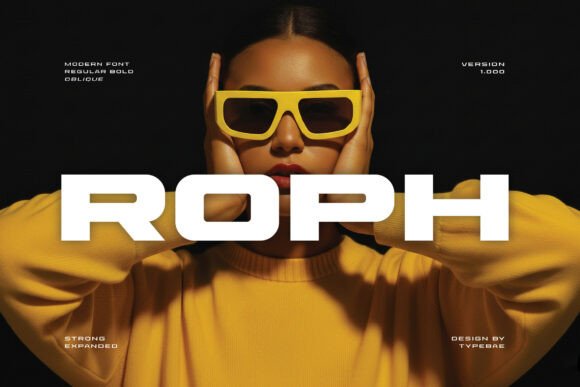
Roph: A Modern Sans Serif for Bold Branding
First Impressions: Roph in the Designer's Eye
When I first saw Roph, it immediately caught my attention with its clean lines and strong geometric structure. It has a modern, almost futuristic feel that sets it apart from more traditional sans serifs. The letters are bold yet balanced, giving them a sense of authority without being overwhelming.
The mood it creates is one of confidence and clarity. It feels like a font that’s built for purpose—whether it’s a brand mark or a headline. Its visual personality leans toward minimalism but with a touch of edge, making it ideal for projects that need to stand out while maintaining professionalism.
Real-World Applications: Where Roph Shines
Roph isn’t just another display font—it’s a versatile tool that can be used across various design scenarios. In logo design, it offers a strong foundation for creating memorable brand identities. Its sharp angles and consistent stroke weights make it perfect for logos that need to project strength and modernity.
In packaging design, Roph adds a sleek, premium feel to product labels and boxes. It works especially well when paired with high-quality imagery, reinforcing a sense of sophistication. For social media graphics, it’s an excellent choice for headlines and call-to-action buttons, ensuring your message is clear and impactful at a glance.
When it comes to web design, Roph performs exceptionally well in headers and navigation menus. Its readability even at smaller sizes makes it suitable for website headers and blog titles. In editorial design, it can serve as a main title font or be used creatively in pull quotes and section headers.
For printable products like flyers, invitations, and merchandise, Roph brings a contemporary edge that appeals to a wide audience. Whether you're designing for a digital ad or a Cricut project, this font maintains its integrity across different mediums and scales.
Where Caution Is Advised: Best Practices for Using Roph
While Roph is highly versatile, there are situations where it should be used carefully. For large headlines, it shines, but for supporting text, it may become too dominant unless paired with a complementary font. It’s best suited for short phrases, brand marks, and decorative accents rather than long paragraphs.
If you're using Roph in premium packaging or brand identity work, ensure that it aligns with the overall tone and values of the brand. It’s not a font for every project—especially those that require a softer or more organic feel.
On social posts, use it sparingly to maintain visual balance. And when working on digital products or Canva templates, test how it looks in different color schemes and backgrounds to ensure it remains legible and aesthetically pleasing.
Readability and Design Impact
One of the most important factors in choosing a font is readability. Roph excels in this area, especially when used for headlines and short phrases. Its uniform stroke widths and open counters contribute to a clean, easy-to-read appearance.
In terms of brand consistency, Roph provides a strong visual anchor. When used consistently across different design assets, it helps reinforce brand recognition and professionalism. This makes it a great choice for brand identity systems that aim to convey a modern, confident image.
The visual mood of Roph is forward-thinking and structured, which can influence audience perception. It conveys trust through its simplicity and clarity, making it an excellent option for marketing visuals and digital ads aimed at a professional or tech-savvy audience.
Designer Notes: Practical Tips for Using Roph
Before committing to Roph in a real project, take some time to test it thoroughly. Try it in black and white to see how it holds up without color. Check its small-size readability on screens and print, especially if it will be used in body text or mobile interfaces.
Test it on real mockups to understand how it interacts with other design elements. Compare its uppercase and lowercase forms to ensure they complement each other in your layout. Review the spacing between characters to avoid any unintended visual gaps or crowding.
Experiment with font pairing by placing Roph next to a serif font for contrast, a sans serif font for cohesion, a script font for elegance, or a handwritten font for a more casual look. Pairing it with a display font can also add visual interest to headlines or titles.
A Font That Delivers on Purpose
Roph is a premium font that doesn’t compromise on style or function. It’s a solid choice for designers looking to inject a modern, confident voice into their work. Whether you're crafting a brand identity, designing a poster, or creating a social media graphic, Roph brings clarity and impact to the table.
As with any commercial font, it’s essential to use it thoughtfully and strategically. But when used correctly, Roph can elevate your designs and help your message resonate more effectively with your audience.